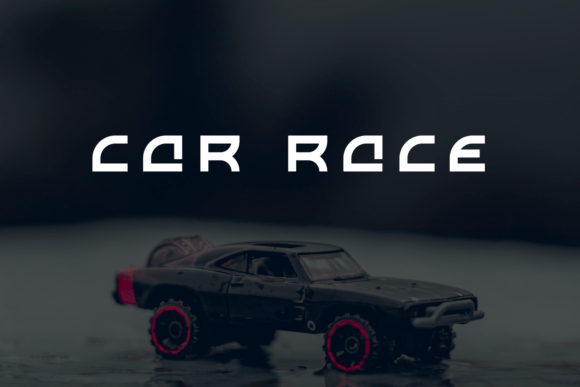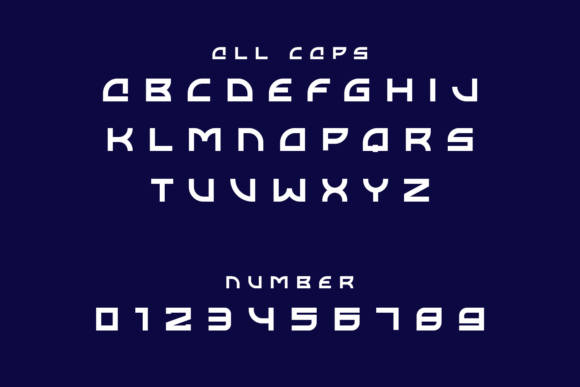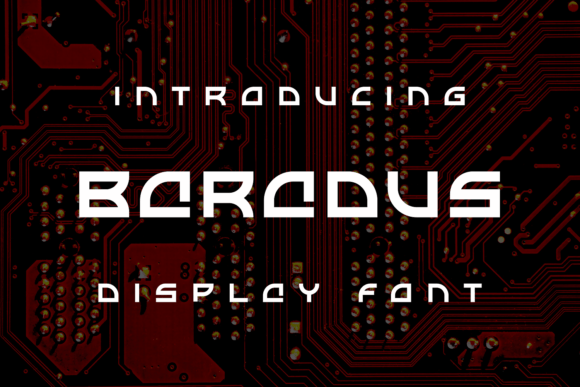
Introducing Baradus Font: Elevate Your Designs with a Cool and Unique Display Font
In the world of typography, a font can make or break a design. It’s the foundation upon which the entire visual aesthetic is built. For designers and crafters looking to elevate their creations, Baradus Font is an exceptional choice. This cool and unique display font is meticulously crafted with attention to detail, making it a valuable asset to any font library.
What Makes Baradus Font Stand Out?
Baradus Font is not just another addition to the vast sea of typefaces available today. Its uniqueness lies in its ability to seamlessly blend style with versatility. Whether you’re working on a branding project, a website, a print design, or any other creative endeavor, Baradus Font has the potential to enhance your creation significantly. Its neat craftsmanship and high level of detail ensure that it stands out in any context.
Key Features of Baradus Font
- Unique Design: Baradus boasts a distinctive style that can add a fresh touch to any design.
- Highly Detailed: The font’s intricate details make it suitable for high-resolution designs and print materials.
- Versatile: Despite being a display font, Baradus can be effectively used across various platforms and design contexts.
Who Can Benefit from Baradus Font?
Baradus Font is a versatile tool that can benefit a wide range of professionals and creatives, including:
- Graphic Designers: Looking for a unique font to make their designs stand out.
- Web Designers: Seeking to add a personal touch to website headers, titles, and other display text.
- Digital Artists and Crafters: Needing distinctive fonts for their digital art, crafts, or DIY projects.
- Marketers and Brand Strategists: Aiming to create a memorable brand identity with custom typography.
How to Make the Most of Baradus Font
To truly leverage the potential of Baradus Font, consider the following tips:
- Pair it Wisely: Combine Baradus with complementary fonts to create visual hierarchy and interest.
- Experiment with Sizes: While Baradus shines as a display font, experimenting with different sizes can reveal new uses.
- Play with Colors: The font’s detailed design responds well to color, so don’t be afraid to get creative.
- Use in Headers and Titles: Ideal for headings, titles, and key messages where you want to grab attention.